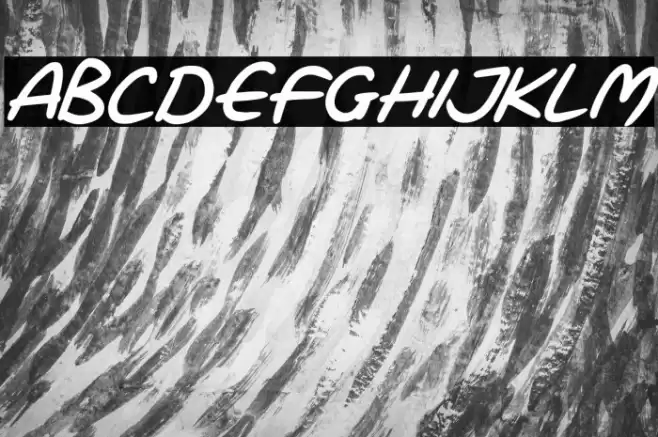
Love Marker Italic Font
Love Marker Italic Description
This font features a playful and dynamic handwritten style, characterized by its fluid and continuous strokes that mimic the look of marker writing. The letters are slightly slanted, adding a sense of motion and informality. The uppercase and lowercase letters maintain a consistent flow, with rounded edges and a casual appearance. The numbers and special characters complement the alphabet with similar stylistic elements, ensuring a cohesive look across all text. This font is ideal for projects that require a personal touch or a creative flair.
A playful, handwritten marker-style font with fluid, slanted strokes from Comic fonts.
- Font: Love Marker Italic
- Proposed Projects: Ideal for greeting cards, invitations, posters, and creative branding projects.
- Overall Style: Casual
- Use Case: Headlines, Logos, Creative projects